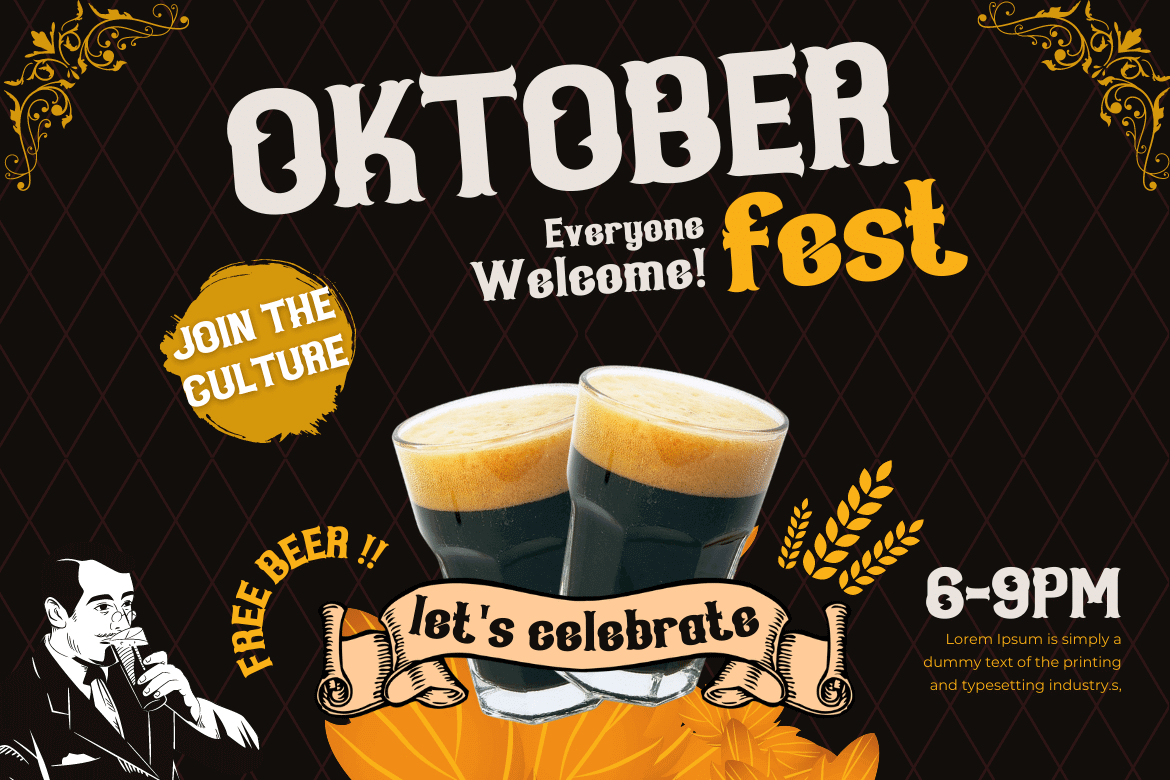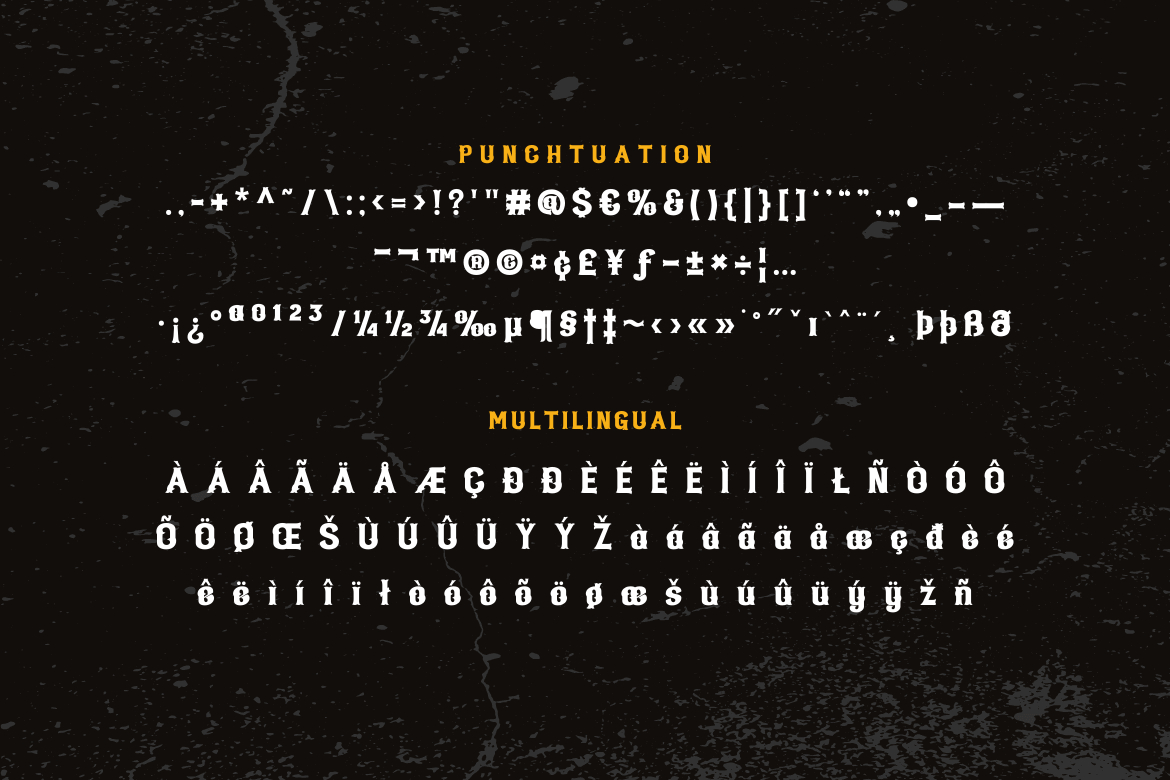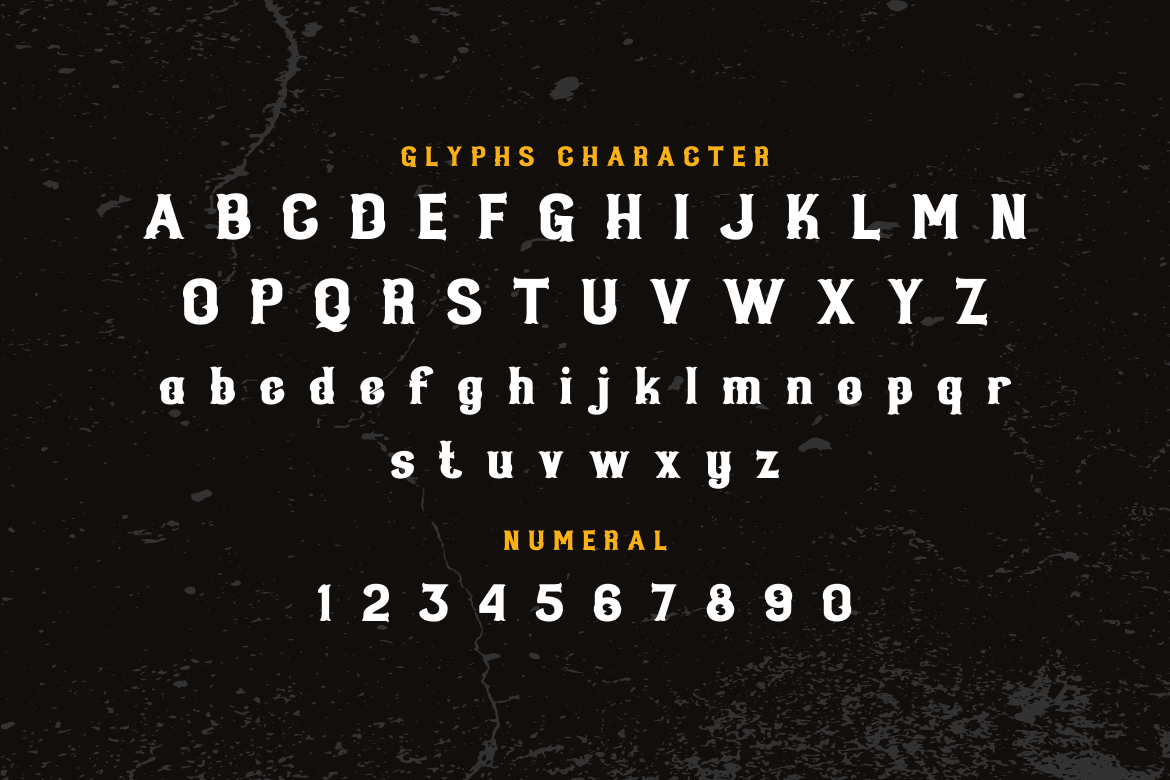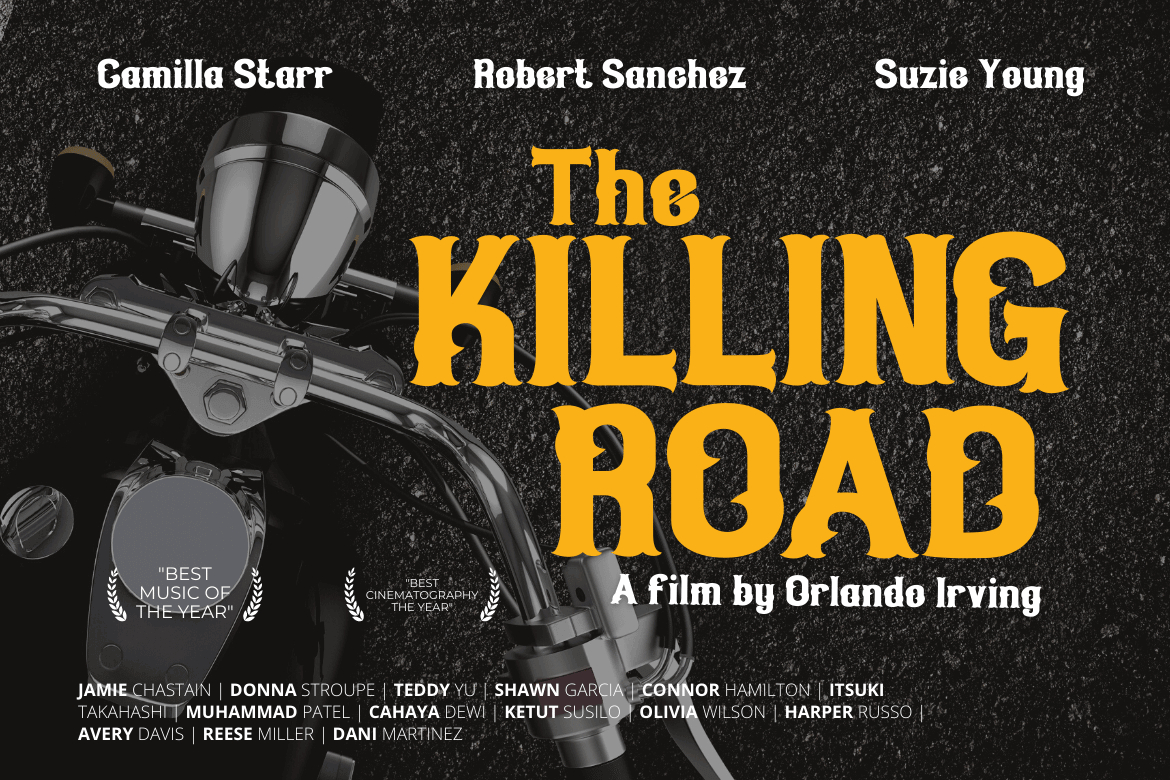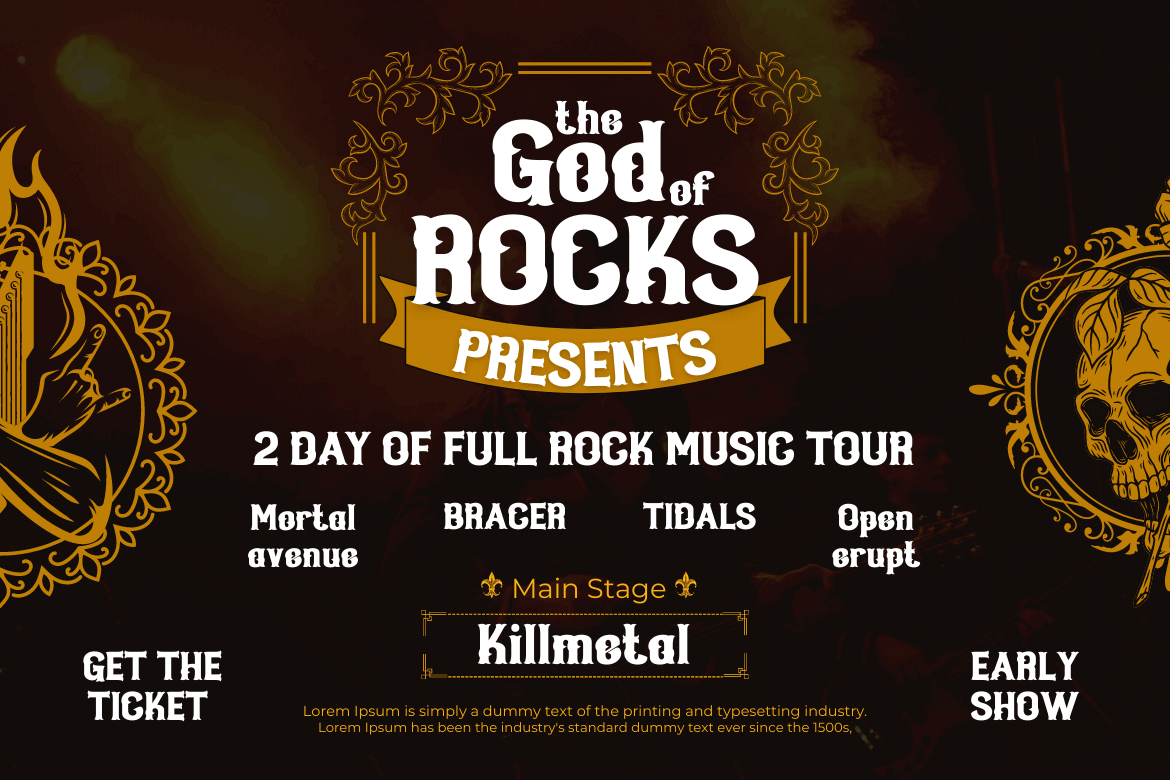
Qiduwy Font
About Qiduwy Font
Qiduwy is a futuristic and stylish blackletter font that will impress with its unique features. Use it for product packaging, branding, or other projects that need bold and daring typography!